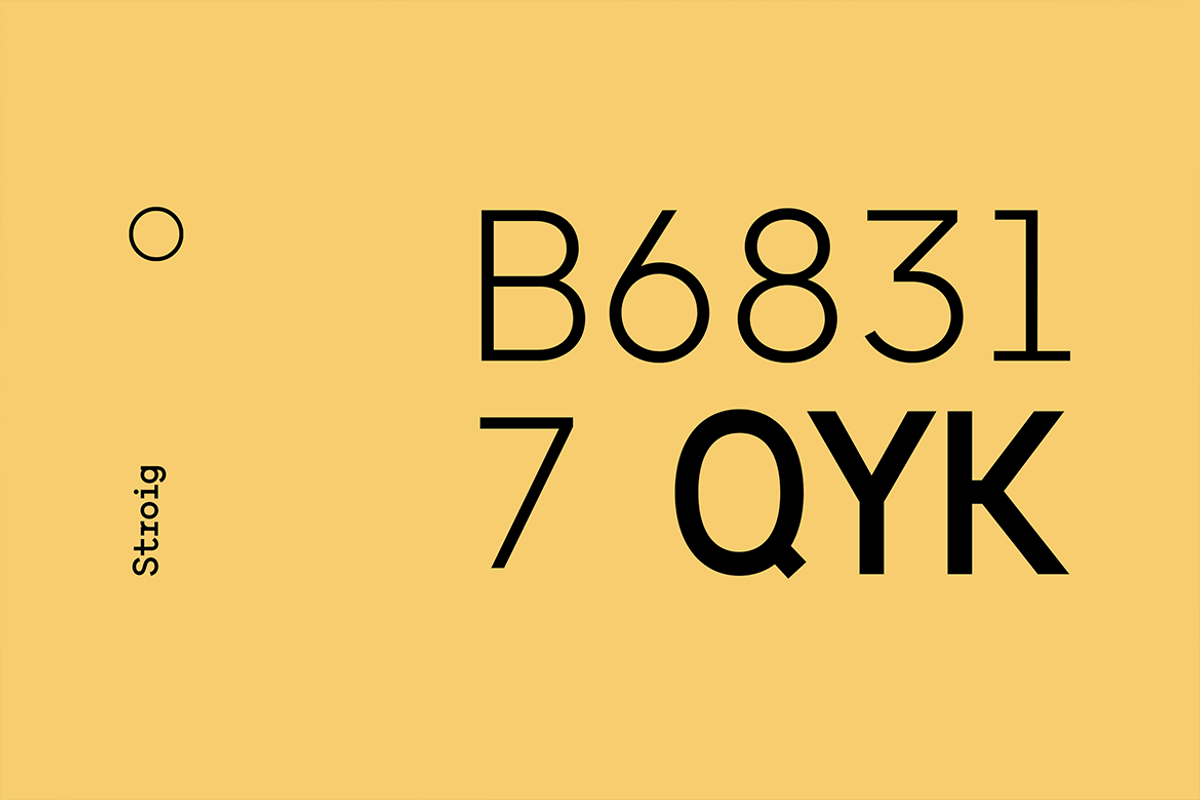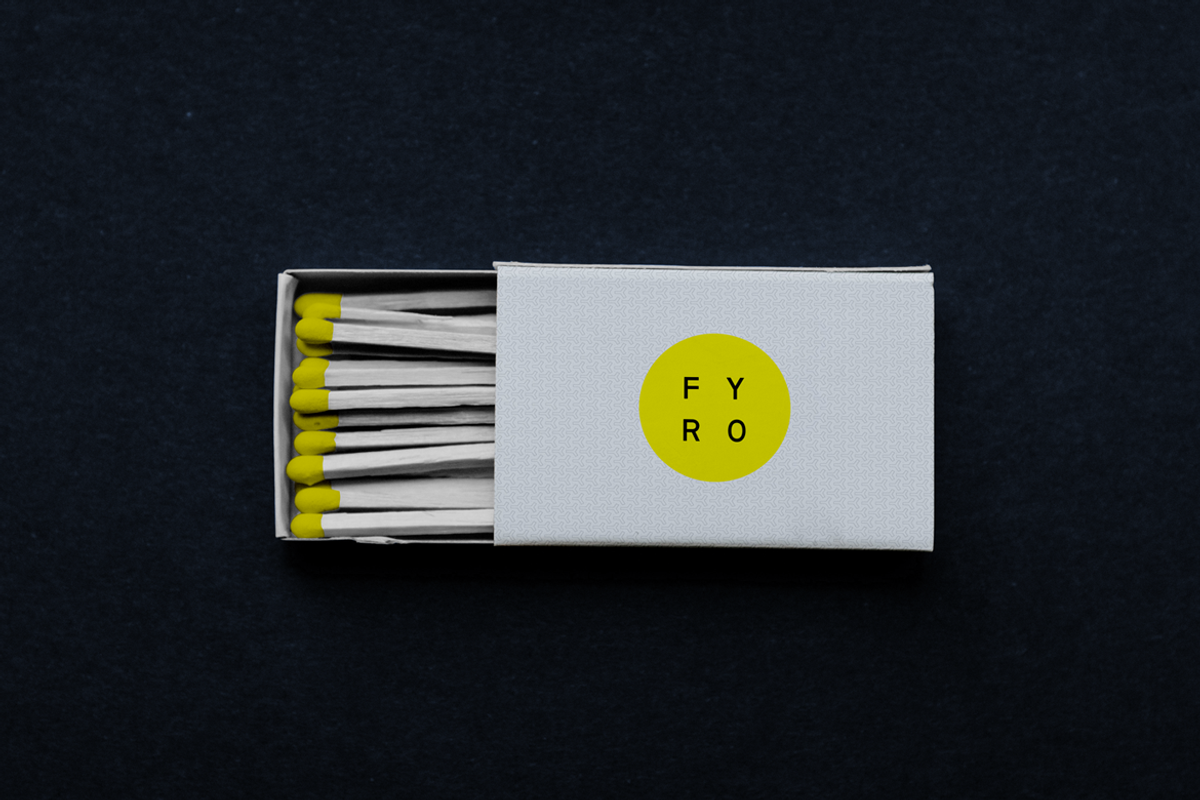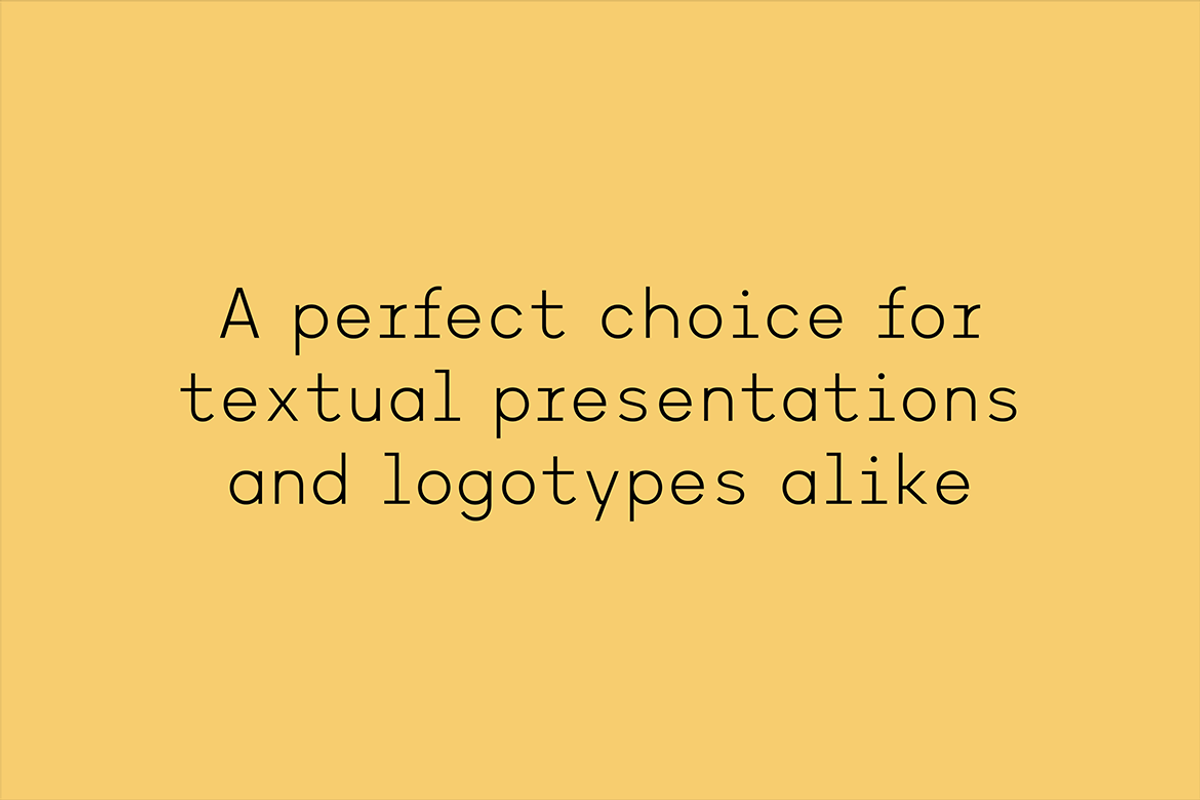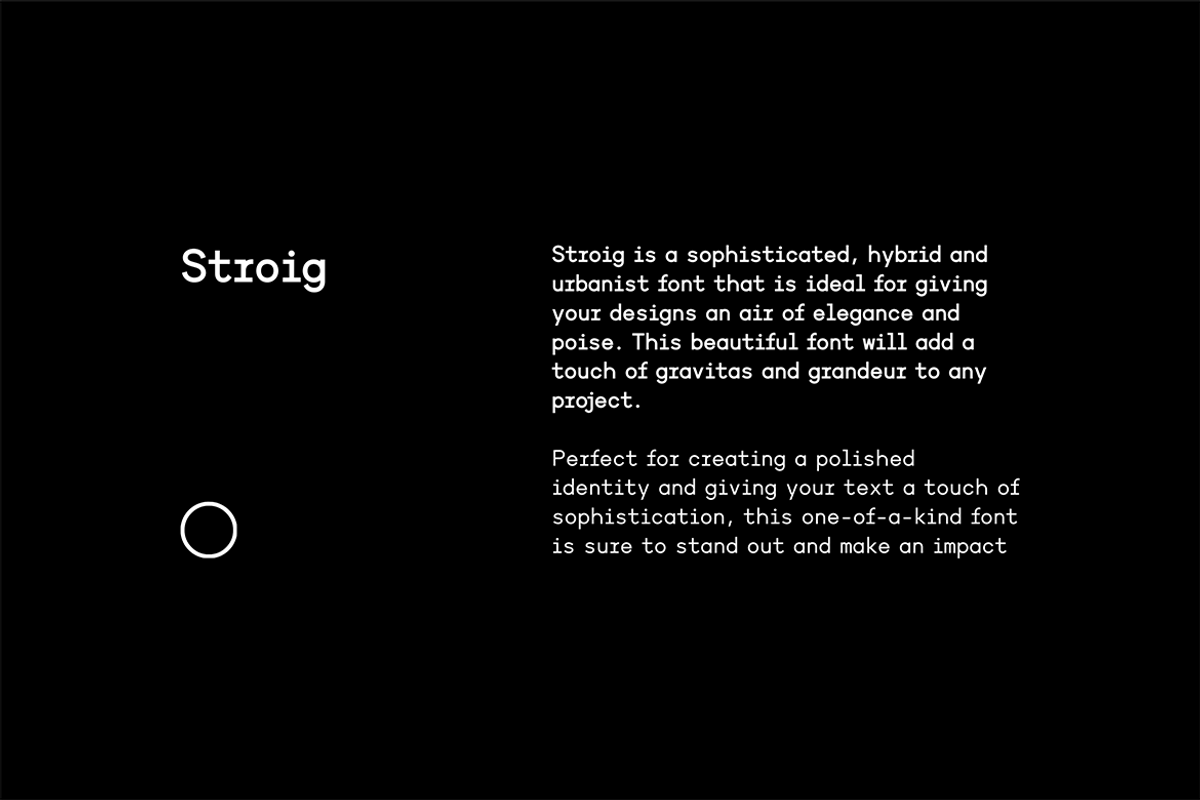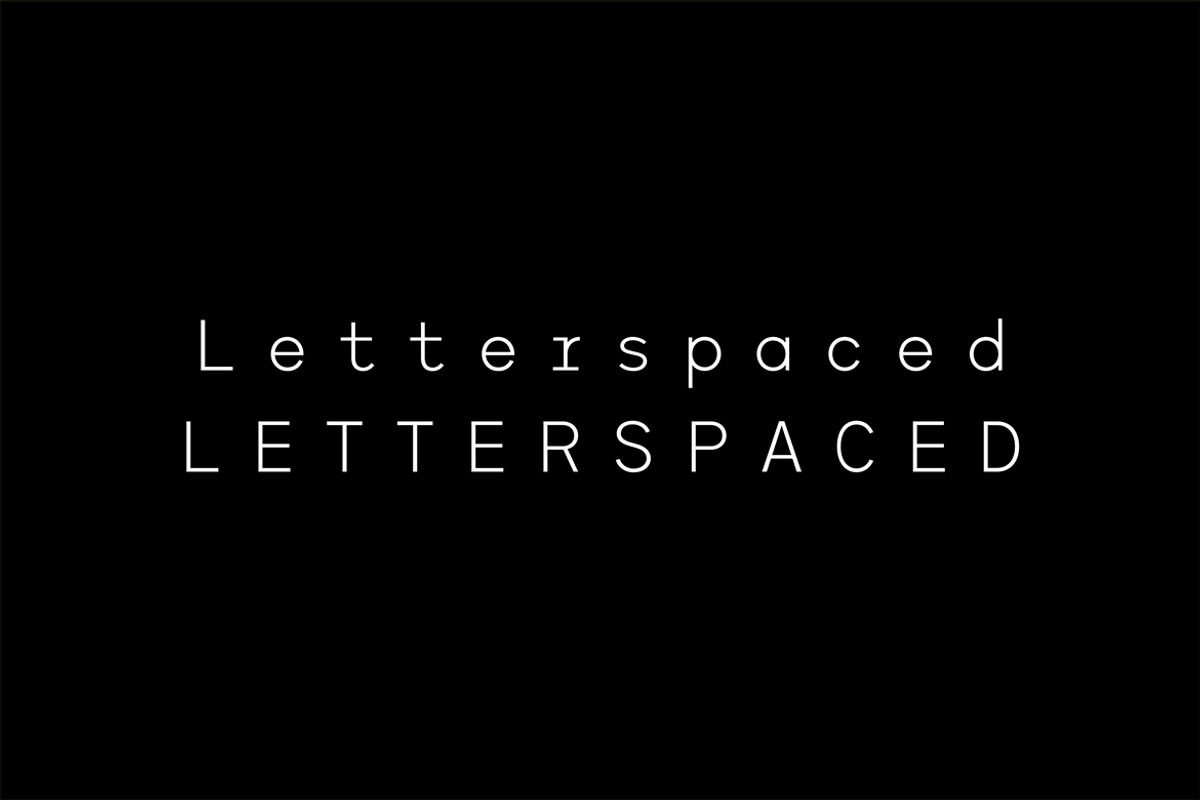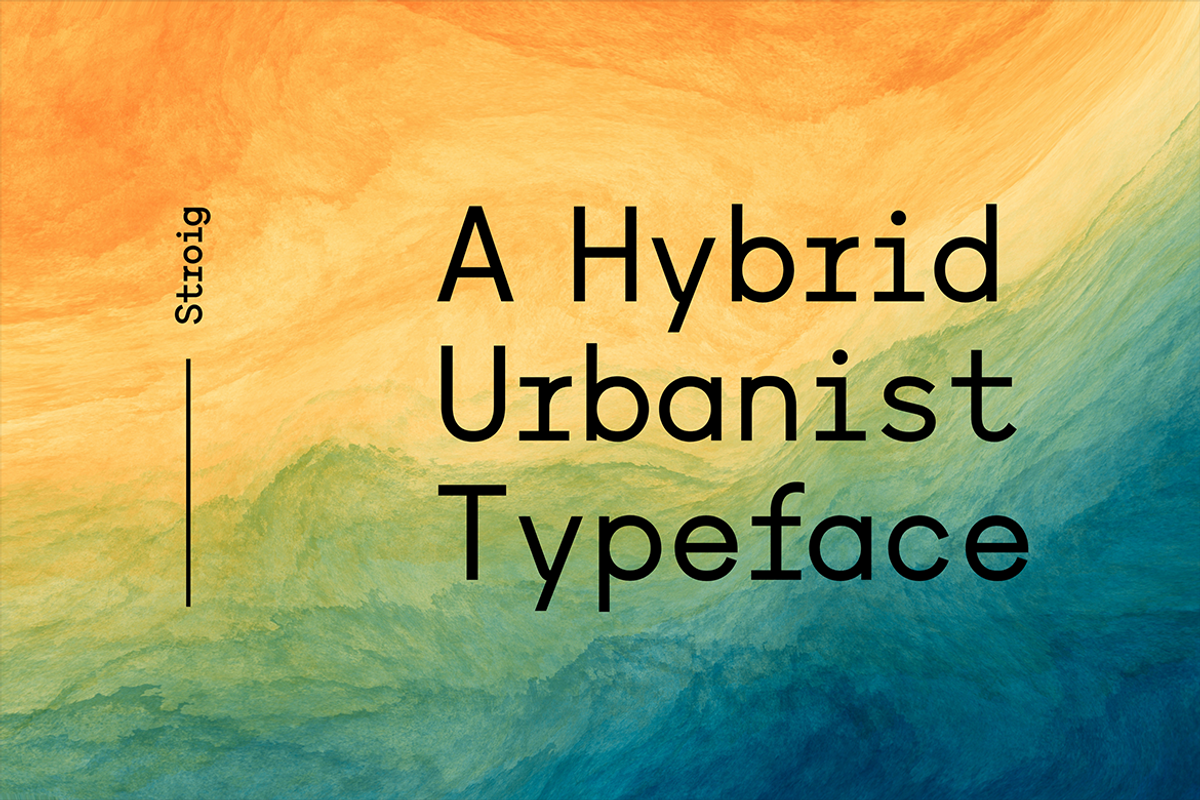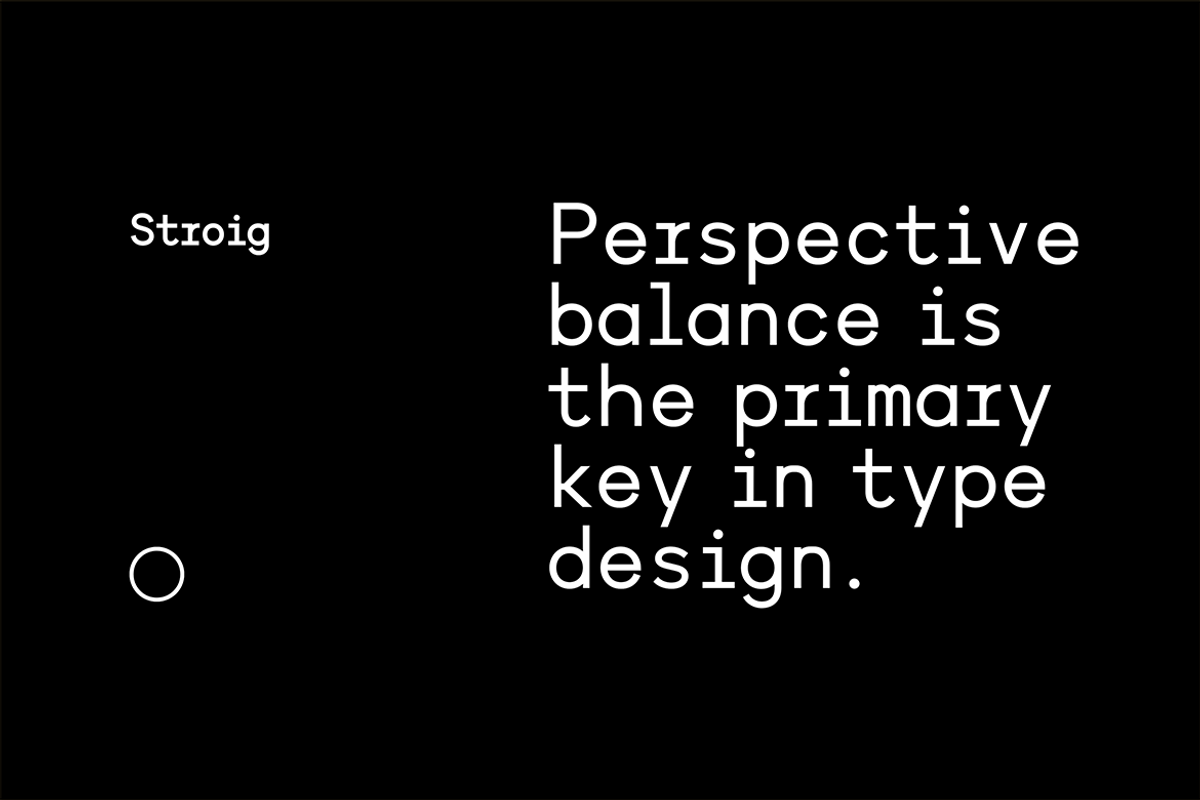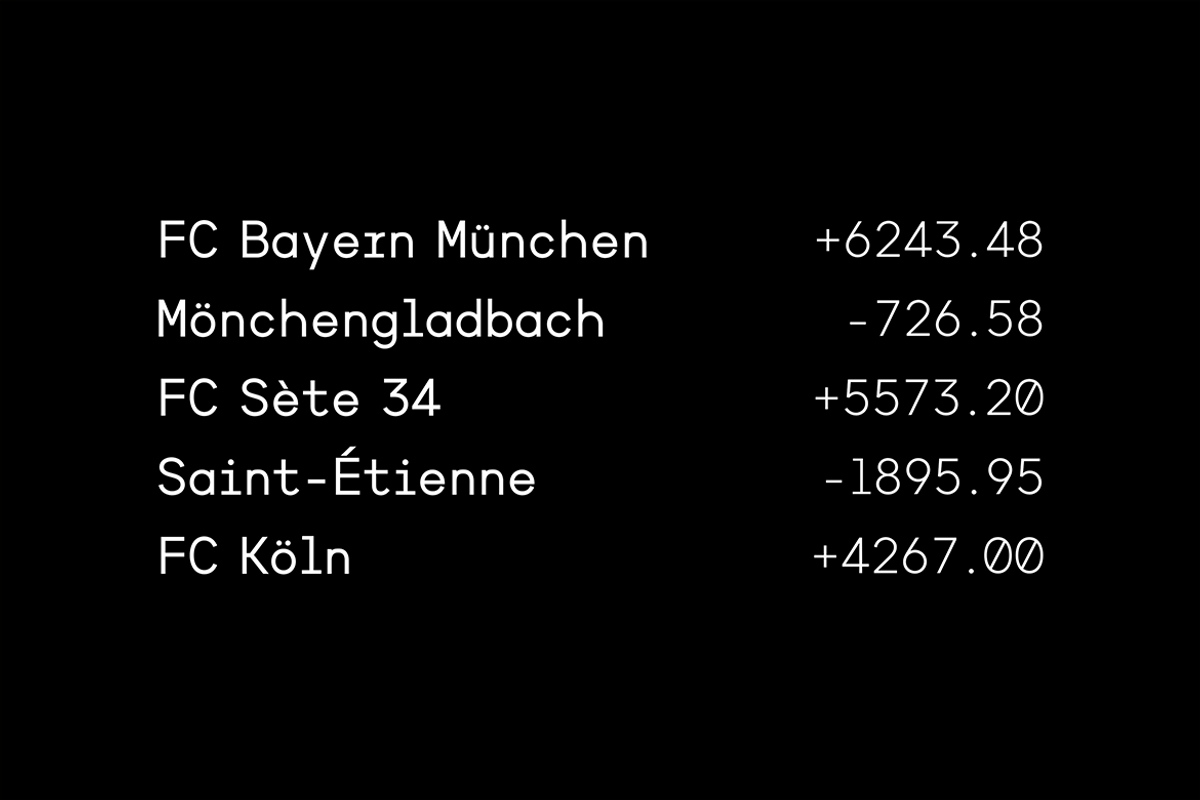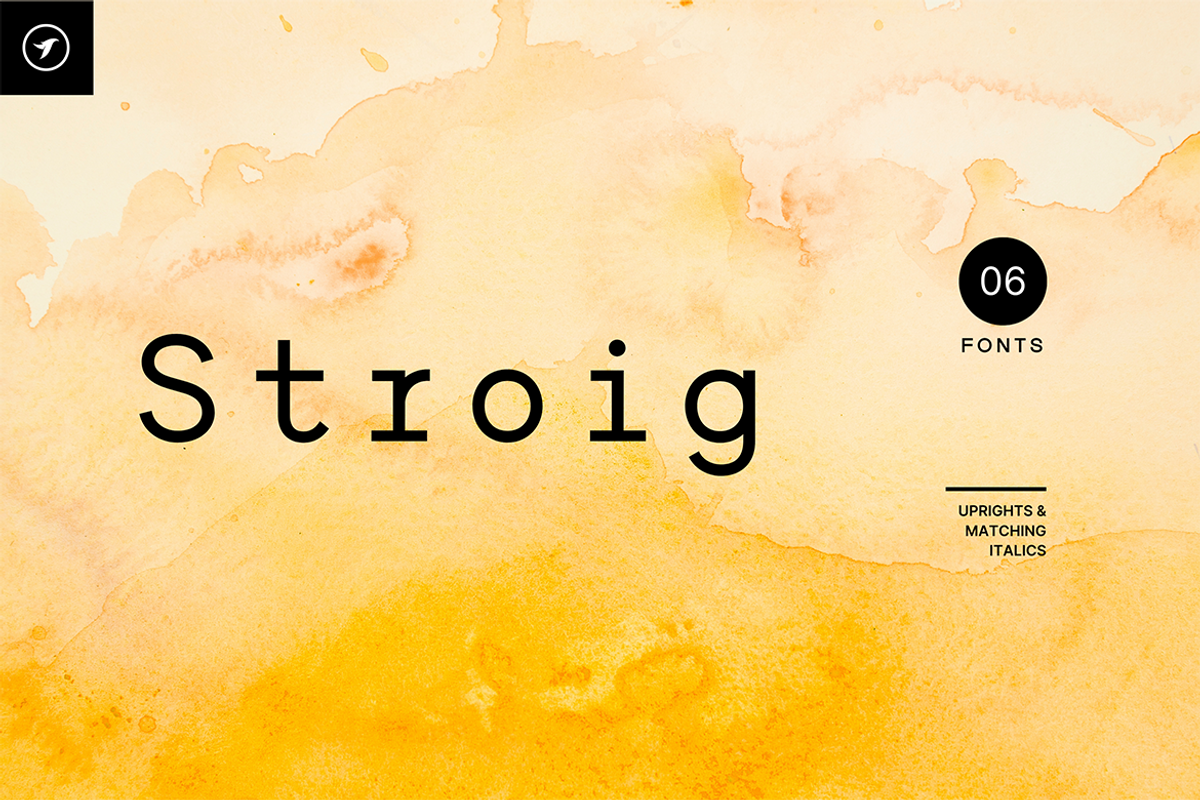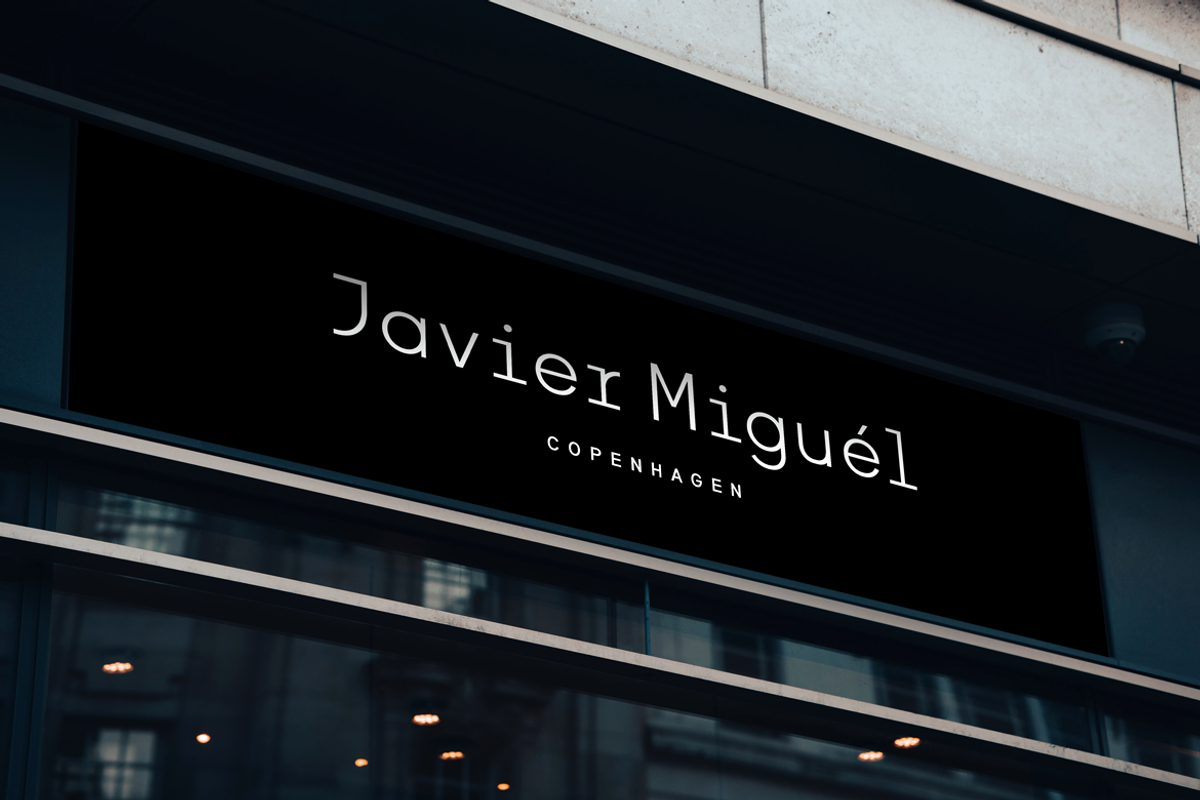
STROIG - Hybrid Urbanist Font Family
STROIG is a sophisticated, hybrid and urbanist font family that is ideal for giving your designs an air of elegance and poise. This beautiful font will add a touch of gravitas and grandeur to any project. Perfect for creating a polished identity and giving your text a touch of sophistication, this one-of-a-kind font is sure to stand out and make an impact
STROIG can be used for multi-purpose textual representations as well as branding, logotypes, and display purposes. It is especially suitable for creating exceptional logos, promotional content, and marketing graphics that can capture your visitors' attention. By adjusting the letterspacing of the font, you can have more design options for your creative projects. Take a look at the examples above to get a better idea of the potential of this typeface.